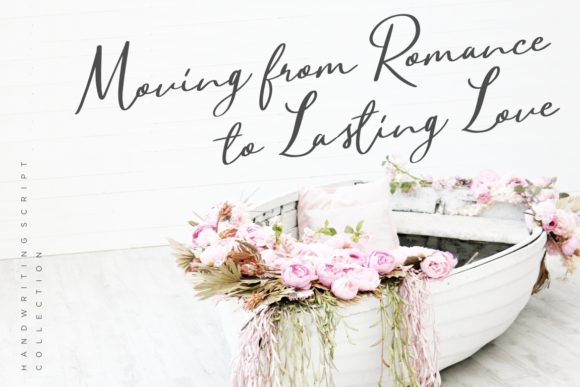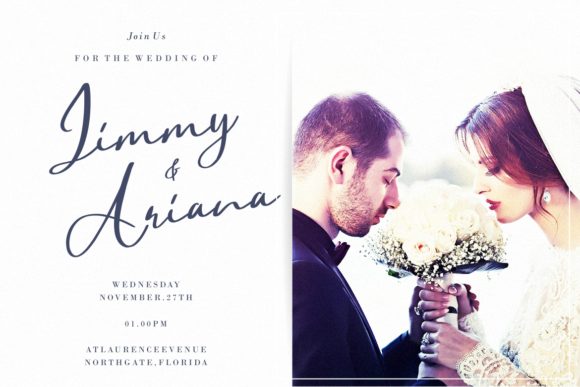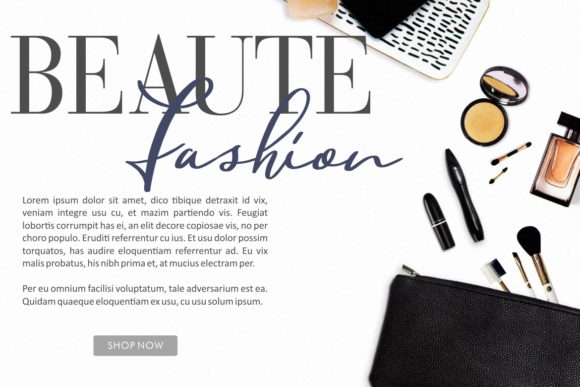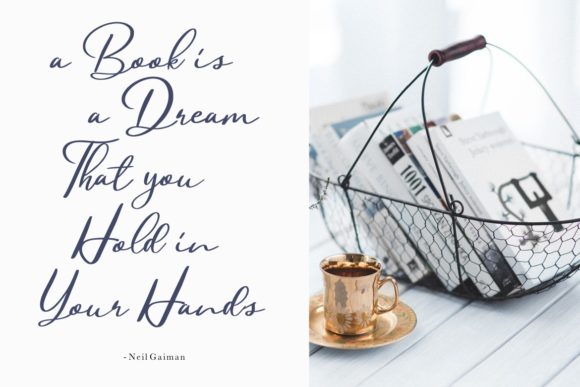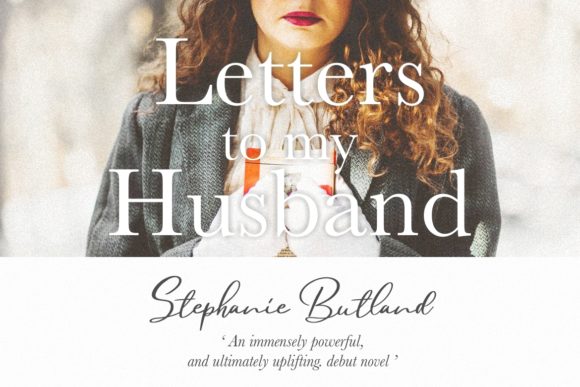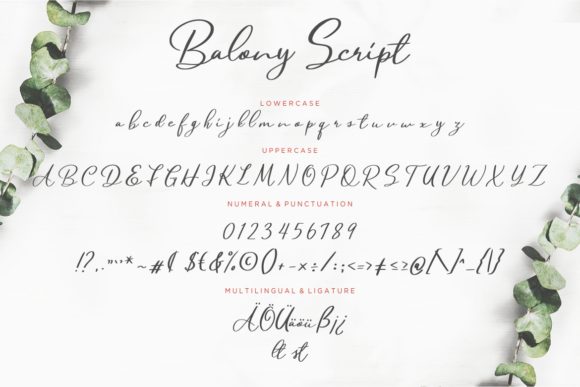
The Perfect Touch: Balony Font for Crafting Perfection
Have you ever been in the middle of a creative project, and suddenly, you need just the right font to bring it all together? It’s that moment when you’re about to give up, but then, like a ray of sunshine, you stumble upon the perfect font. For many designers, that moment is when they discover the lovely Balony Font.
Balony Font is designed specifically for adding a sweet and charming touch to your next crafting idea. Its elegant, yet playful style makes it the ideal choice for a wide range of projects, from invitations to digital art. Whether you’re a seasoned designer or a hobbyist, Balony Font is a valuable addition to your toolkit, offering a unique flair that sets your creations apart from the rest.
- Unique Characteristics: Balony Font features a distinctive, hand-drawn style with bold lines and subtle texture, giving it a unique and eye-catching appearance.
Designer Review: Balony Font
First of all, let’s talk about what ✨ works well in Balony Font. The unique blend of swashes and ligatures gives it a distinctive touch that’s perfect for adding some flair to your designs. The font is highly customizable, allowing you to adjust the spacing and scaling to fit your needs.
Another great aspect of Balony Font is its versatility. It’s suitable for a wide range of designs, from elegant invitations to modern logos. The font also includes a variety of weights and styles, making it easy to find the perfect match for your project.
- ⚠️ Some users may find the font’s swashes and ligatures distracting or overly ornate
Overall, Balony Font is a solid choice for designers looking to add some personality to their projects. While it has its limitations, the unique style and versatility make it a great addition to any font collection.
Balony Font is a playful and whimsical font that is perfect for use in children’s book covers, party invitations, and other creative projects. To get the most out of it, experiment with different font sizes, colors, and combinations with other fonts. You can also use Balony Font to add a touch of personality to your branding and marketing materials.